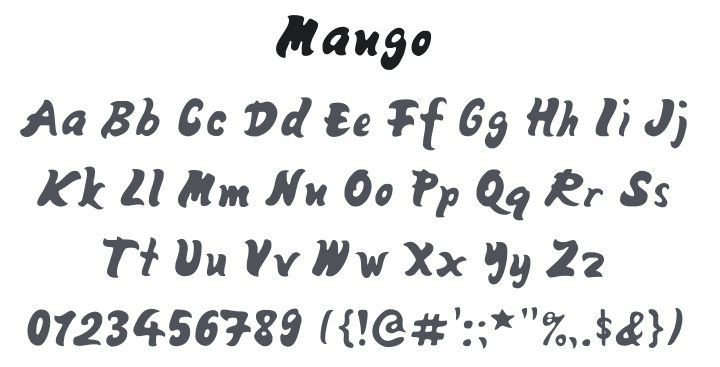
Mango Font Family
About Mango
Mango is a casual, bouncy outline script typeface with bold, rounded letterforms and a warm, hand-drawn quality — its flowing strokes feel spontaneous and tropical, like a hastily scrawled beach shack sign. It comes in layerable outline, fill, and scribble variants for creative colour combinations. Perfect for juice bar branding, tropical event posters, casual food packaging, lifestyle logos, and any design needing fun, sun-soaked energy.